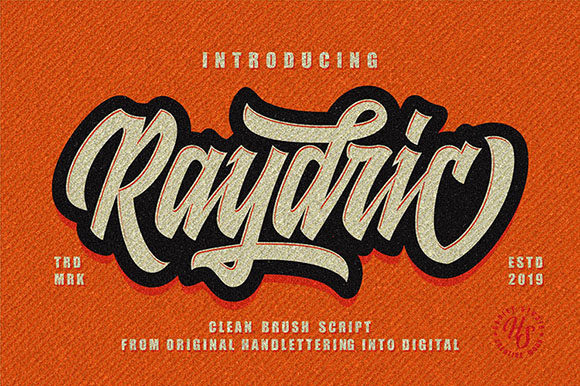
Introducing Raydric Script + Shadow Outline Font: The Epitome of Elegance and Creative Expression
Unleash the power of Raydric Script + Shadow Outline Font, a captivating creation by Hanzel Studio. This modern handwritten font transcends the boundaries of ordinary typography, inviting you to embark on a journey of artistic exploration and visual storytelling.
With its graceful strokes, Raydric Script captivates the essence of handwritten beauty, while the shadow outline adds a touch of intrigue and depth, making your designs pop with an irresistible charm. Experience the sheer joy of crafting logos that exude timeless elegance, quotes that resonate with emotional depth, posters that ignite imaginations, and merchandising that embodies the essence of your brand.
Step into a world where creativity knows no bounds, where words dance with grace and shadows tell stories. Let Raydric Script + Shadow Outline Font ignite your passion for design and transform your projects into masterpieces that leave a lasting impression.
Embrace the allure of Raydric Script and elevate your designs to new heights. Its versatility knows no limits, making it the perfect choice for a myriad of projects. Whether you're a seasoned designer seeking inspiration or a budding creative exploring your artistic potential, Raydric Script will become your trusted companion, guiding you towards design excellence.